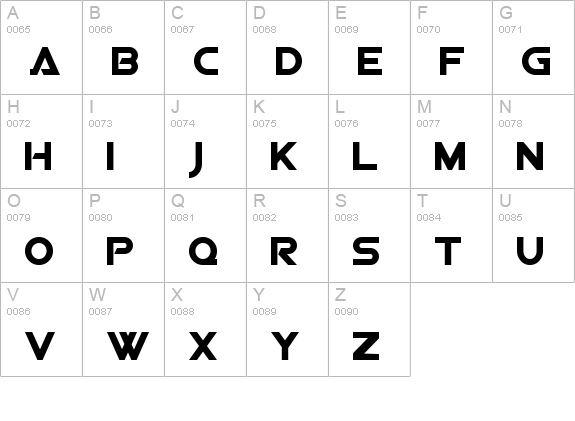
Viper Squadron Solid Font Details
Introducing Viper Squadron Solid, a striking and powerful font that exudes a sense of strength and determination. With its clean lines and bold presence, this typeface commands attention and leaves a lasting impression. The Viper Squadron Solid font is perfect for projects that require a touch of military-inspired elegance. Its sharp edges and sturdy design make it an excellent choice for logos, headlines, posters, and more. Whether you're creating a bold statement or aiming to capture the essence of adventure, Viper Squadron Solid is the font that will take your designs to new heights. But what makes Viper Squadron Solid even more appealing is that it is freely available to download at FontsMarket.com. Yes, you read that right - you can access this exceptional font without spending a single penny. FontsMarket.com is your go-to destination for high-quality fonts, and they are delighted to offer Viper Squadron Solid as a free option for all your creative needs. Whether you're a professional designer or a budding enthusiast, Viper Squadron Solid is a font that will ignite your imagination and elevate your work. Embrace the strength and confidence that this font embodies and watch as your designs come to life. Download Viper Squadron Solid today from FontsMarket.com and experience the power of this incredible font. Unleash your creativity and make a statement that won't be forgotten with Viper Squadron Solid - the font that is both captivating and free.